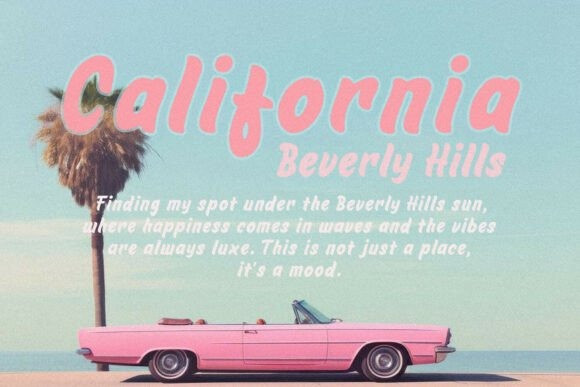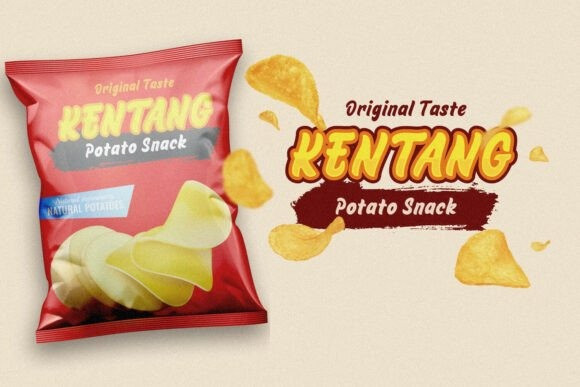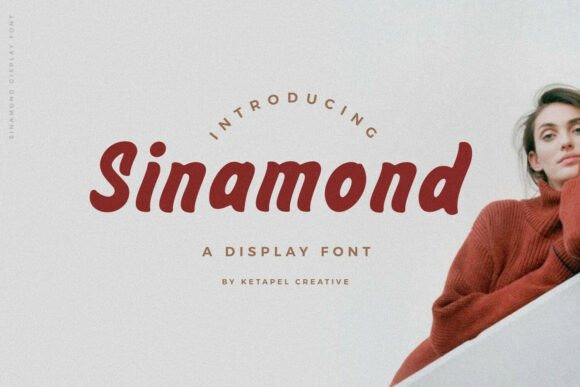
Sinamond Font
Sinamond Font is a warm and expressive display font that blends smooth curves with bold strokes, creating a design that feels both modern and nostalgic. Its rounded terminals and subtle contrasts give each letter a friendly yet confident personality, making it a perfect choice for projects that aim to balance elegance with approachability.
Whether used in branding, editorial headlines, posters, or digital graphics, the Sinamond font captures attention with its inviting tone while maintaining strong readability. Its handcrafted feel adds charm and authenticity, allowing it to adapt seamlessly from stylish lifestyle products to contemporary campaigns. Designed with versatility in mind, Sinamond is not just a font but a statement of character that enhances any creative project.